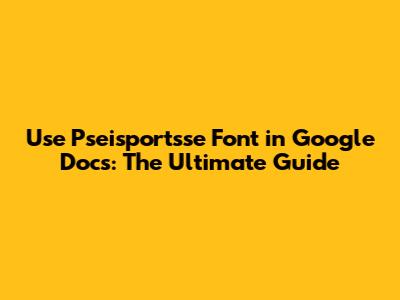
- Find a Similar Font: Since Pseisportsse isn't on Google Fonts, you'll need to find a font that's similar. The goal is to find a font that resembles Pseisportsse in style and appearance. Search for fonts with a modern, sporty, or bold look. Consider fonts with a similar feel. Explore the various font categories to discover fonts that can fit your needs and preference. Look for the fonts that have the same characteristics as Pseisportsse.
- Font Looks Different: The font you've chosen might look slightly different in Google Docs than you expected. This can be due to a few factors:
- Font Variations: The font you chose might have slight differences in its design compared to what you’re used to. Every font has its subtle variations, so it is necessary to check if the font matches the style you're looking for.
- Rendering: Different operating systems and browsers render fonts slightly differently. Be aware that the display might vary depending on the device and browser.
- Font Changes After Saving: Sometimes, after saving your document, the font might change or revert to a default font. This could be due to:
- Font Availability: If the font isn't correctly installed or accessible on another device where you open the document, it might revert to a default font.
- File Format: Ensure that you're saving the document in a format that preserves the font. Google Docs' native format is usually fine, but if you're exporting the document (e.g., to .docx), make sure the font is supported in that format.
- Browser Issues: Sometimes, browser extensions or settings can interfere with how fonts are displayed and saved. Try disabling extensions or using a different browser.
- Font Size and Weight: Play with the font size to make your text pop. Bold text can give your headings extra impact, while italics can add emphasis. Experiment with different sizes to find the ideal balance for readability and visual appeal. You can adjust the font size directly from the toolbar, and use bold and italic options to change the text's weight.